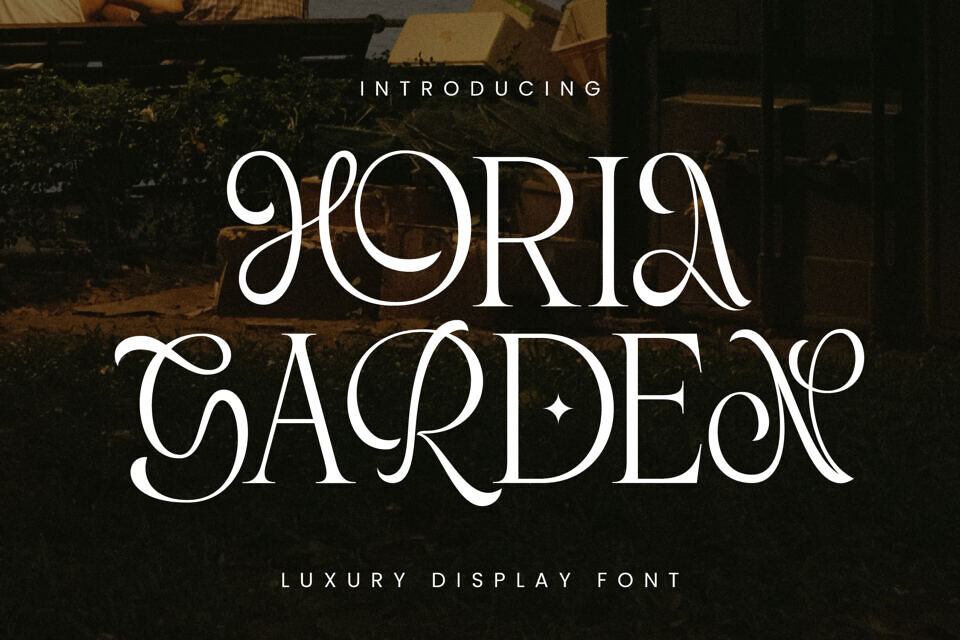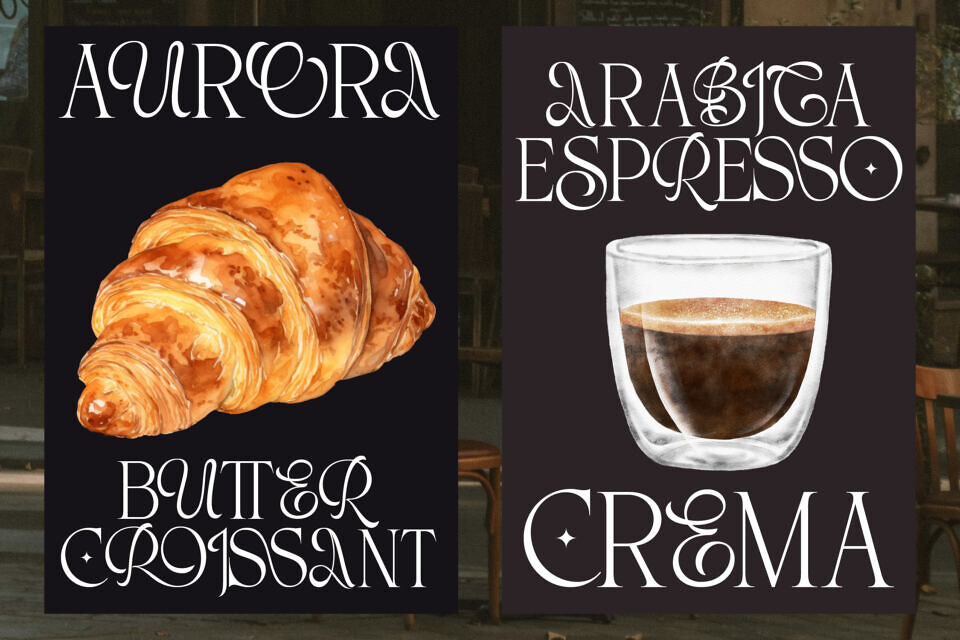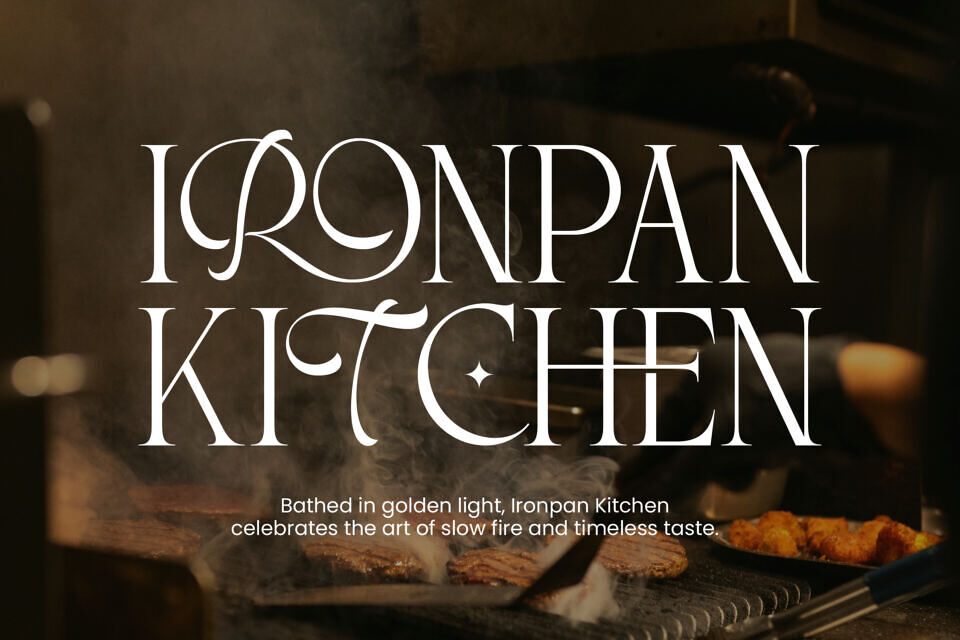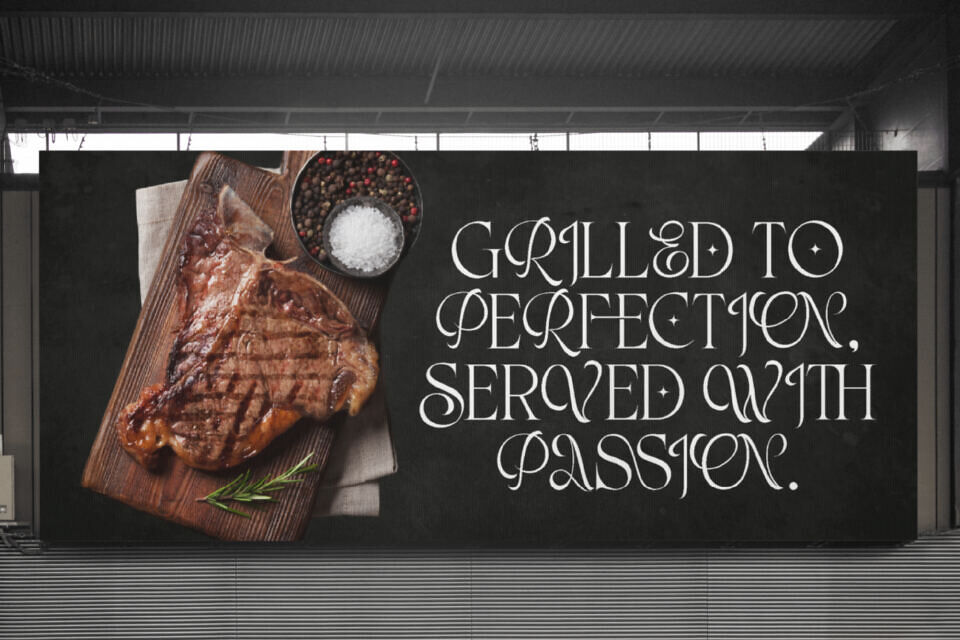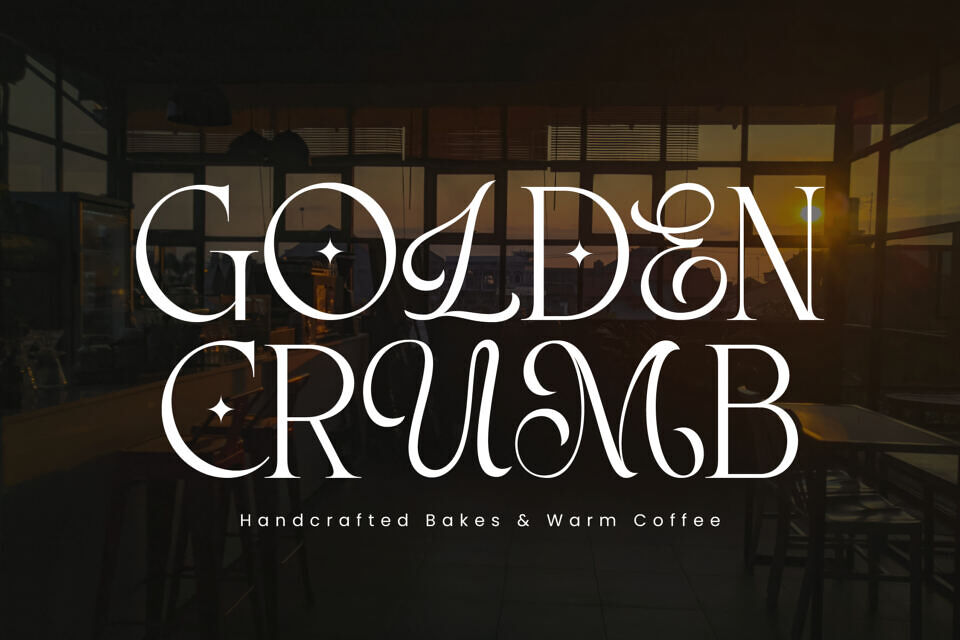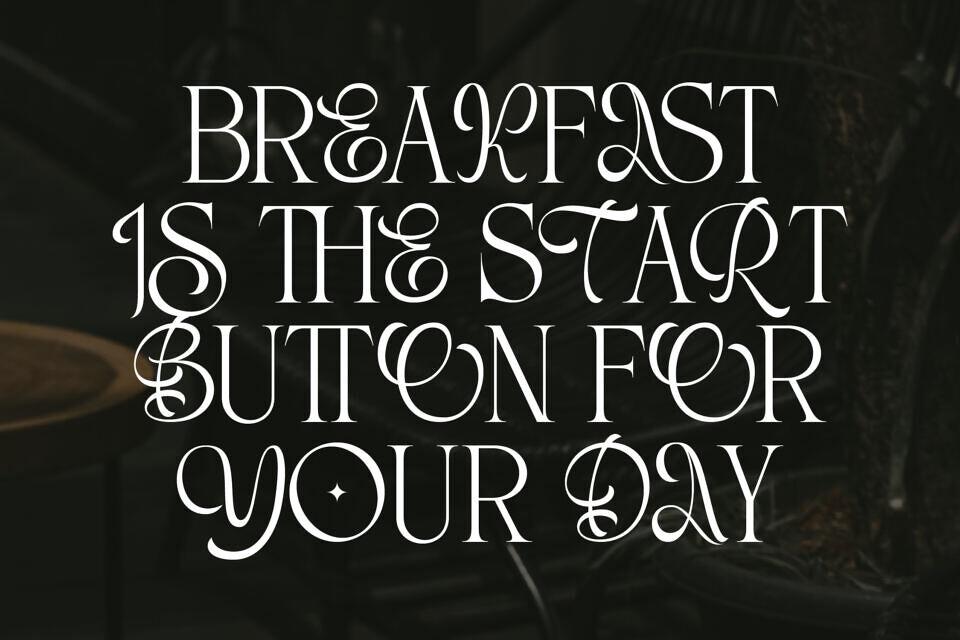
Horia Garden Font
Horia Garden is a luxury serif display font designed to bring a sense of refined elegance and artistic charm to the world of food and lifestyle branding. Each letterform carries graceful curves and classic details, creating a perfect balance between sophistication and warmth — ideal for premium café logos, fine dining restaurants, artisan bakeries, and coffee packaging.
Crafted with attention to detail and delicate flourish shapes, Horia Garden evokes a feeling of refinement, indulgence, and timeless style. It’s more than just typography — it’s an atmosphere of taste, light, and golden luxury.